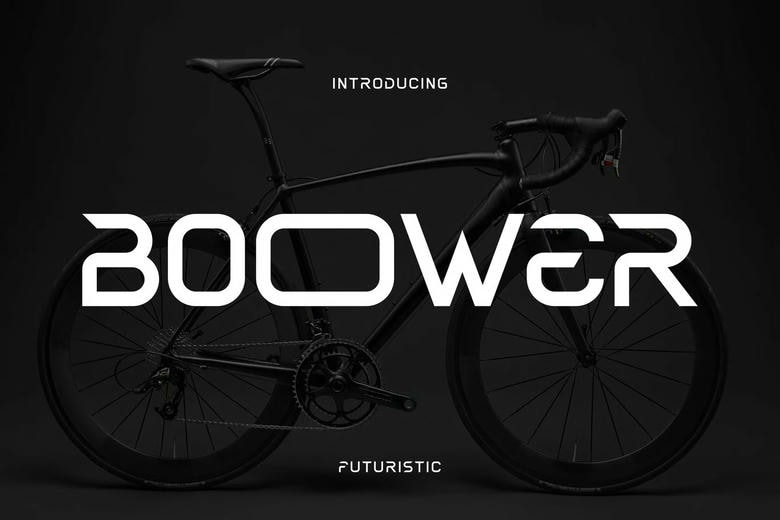
Boower Font
Boower Font Sans Futuristic Logo Font is a fantastic and genuine display typeface having a smooth looking futuristic design. It has a modern and innovative feel due to its futuristic design features that add to its clean sans serif form. Ideal as a logos and branding element, it provides a striking, innovative feel to any visual work.
Boower Logo Font